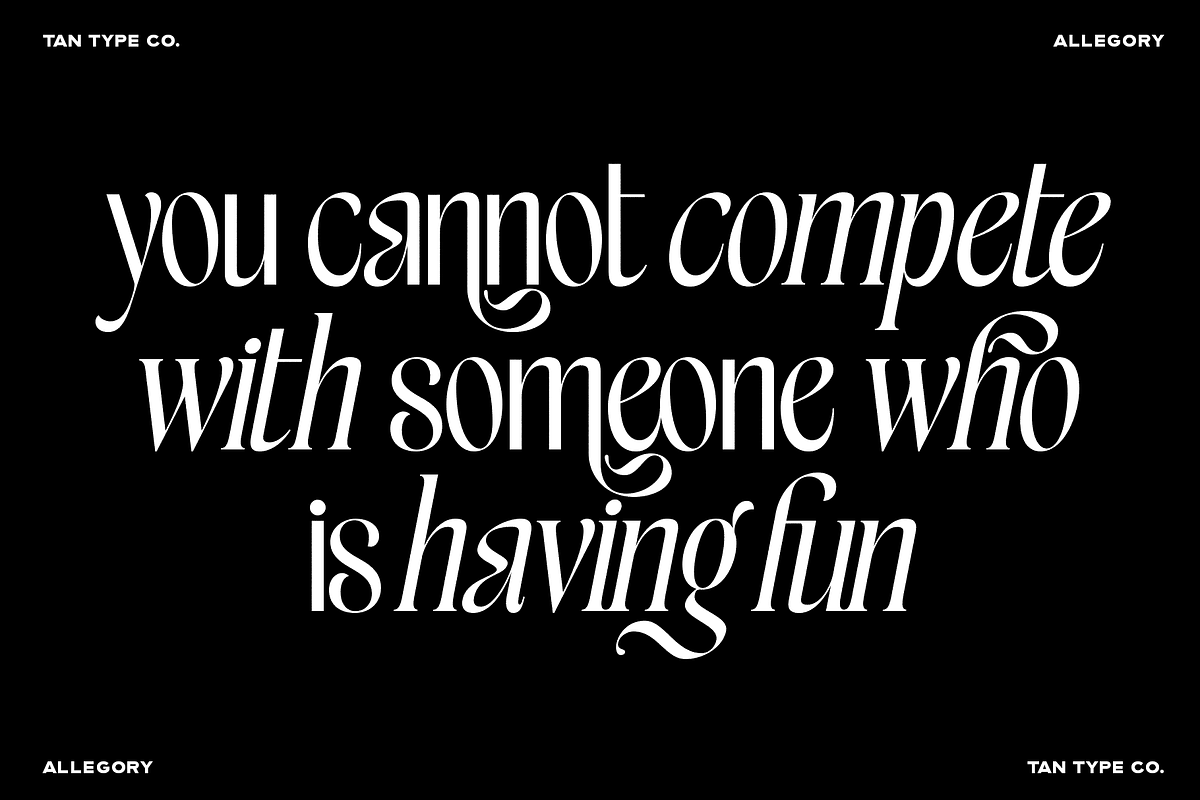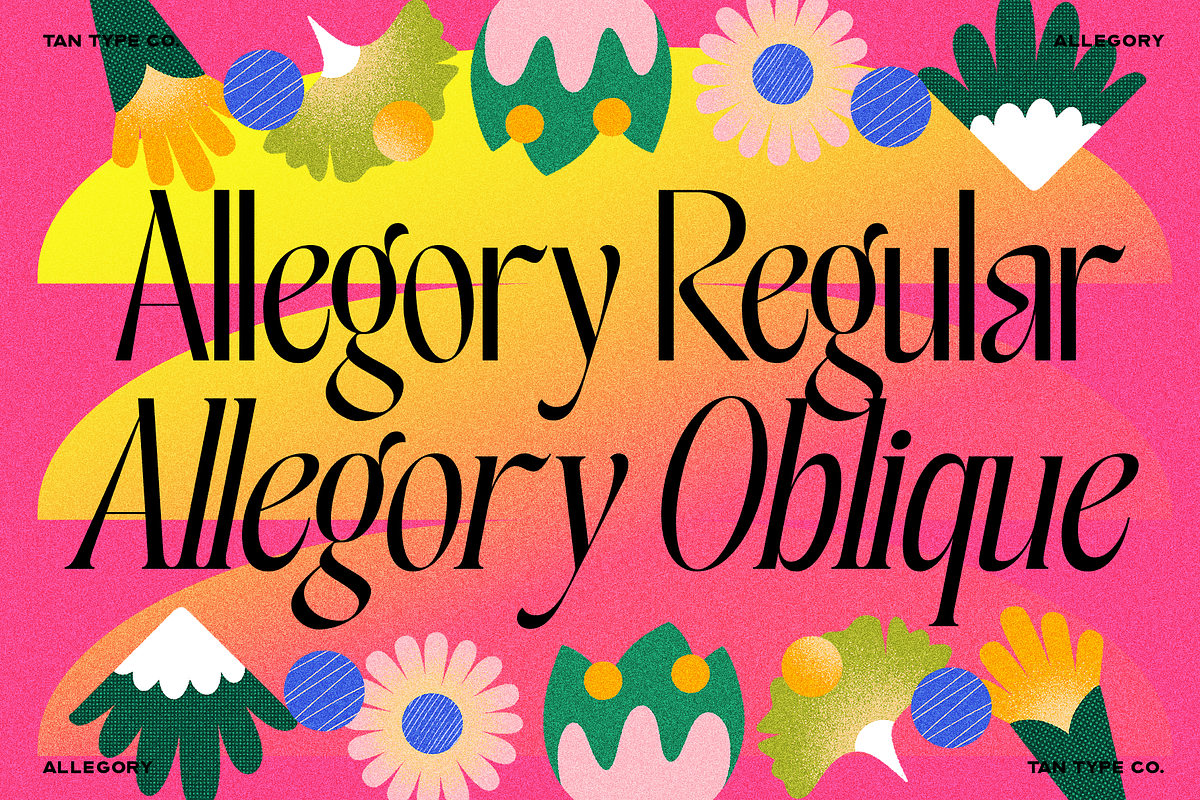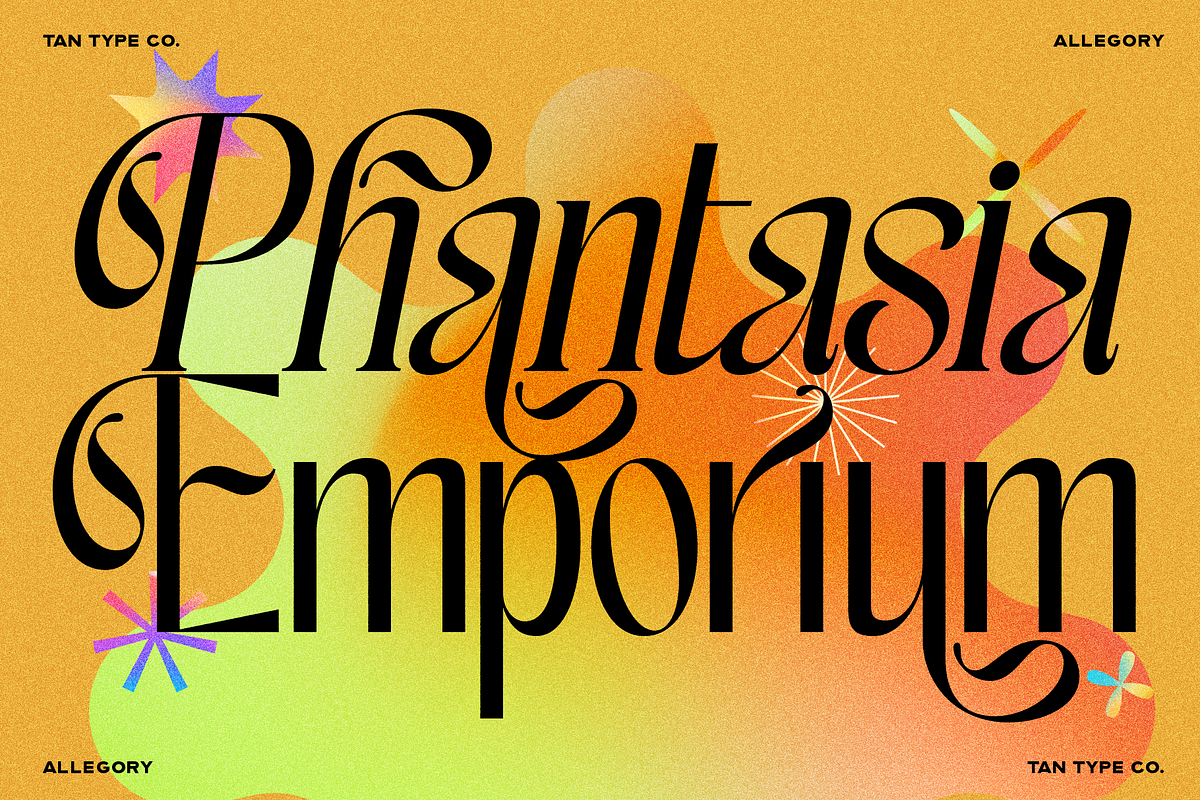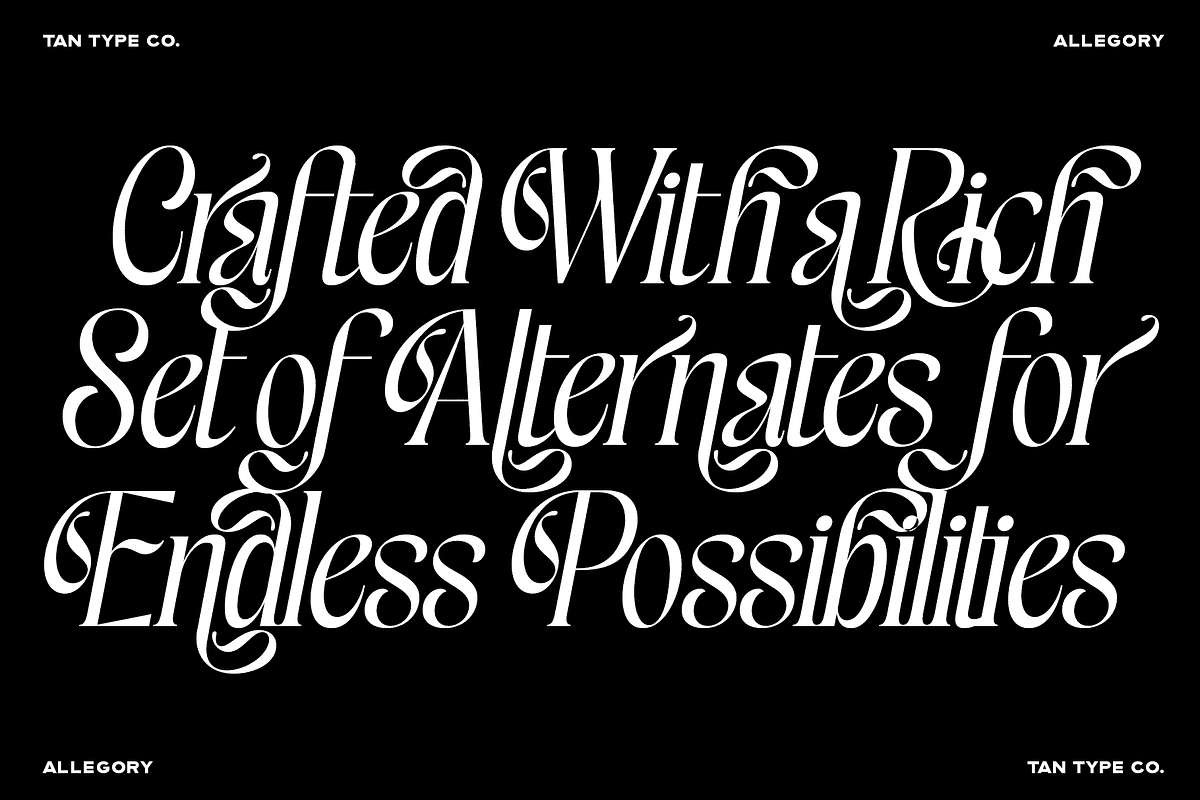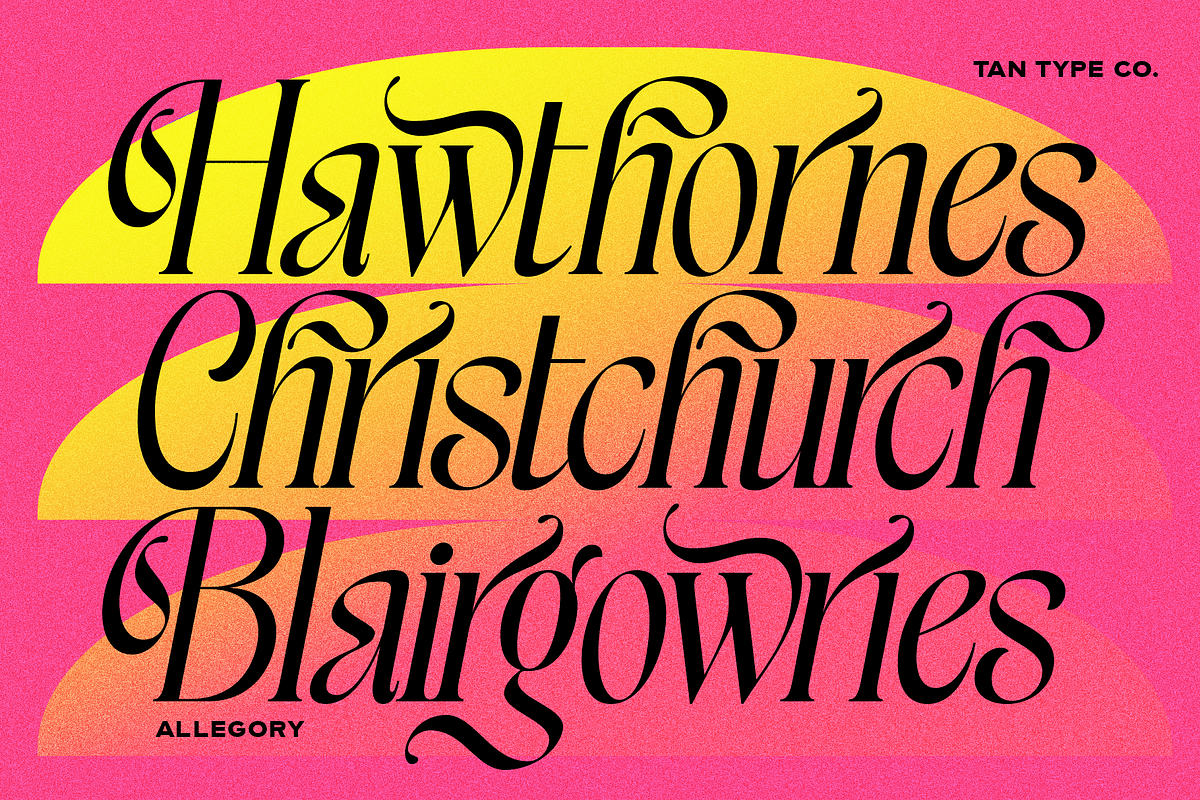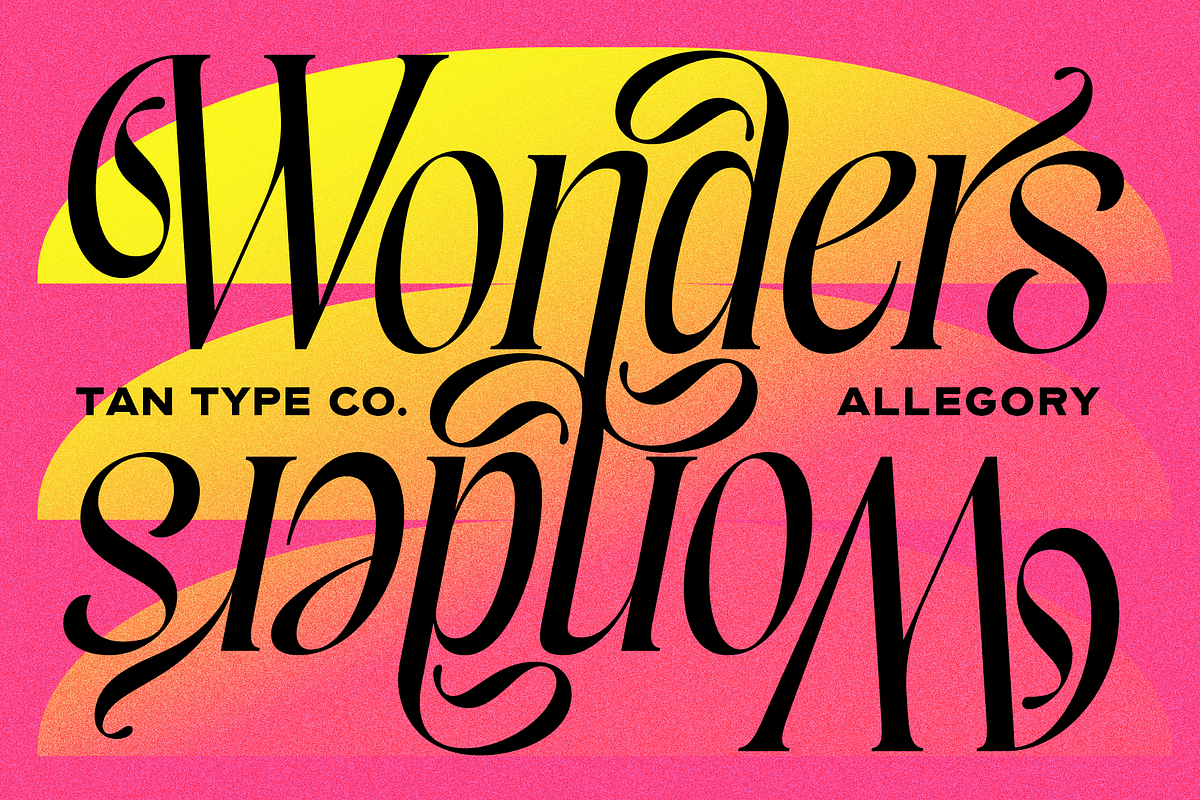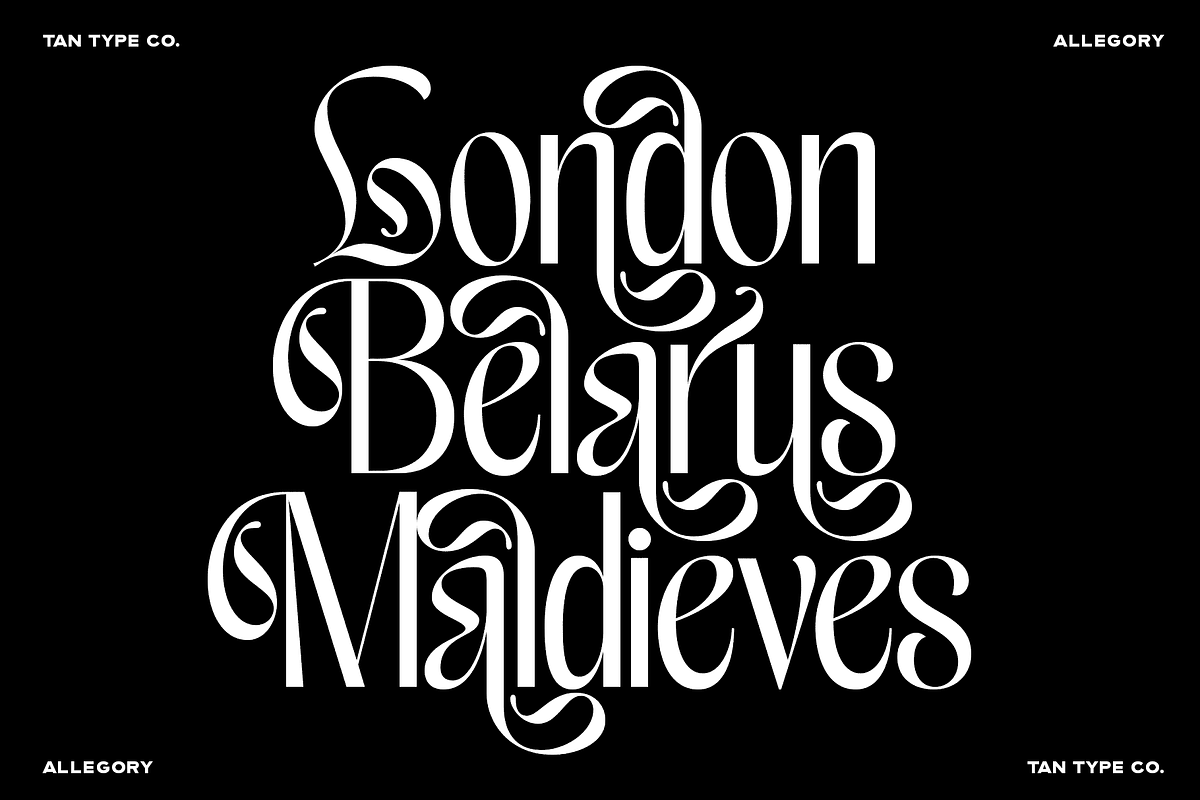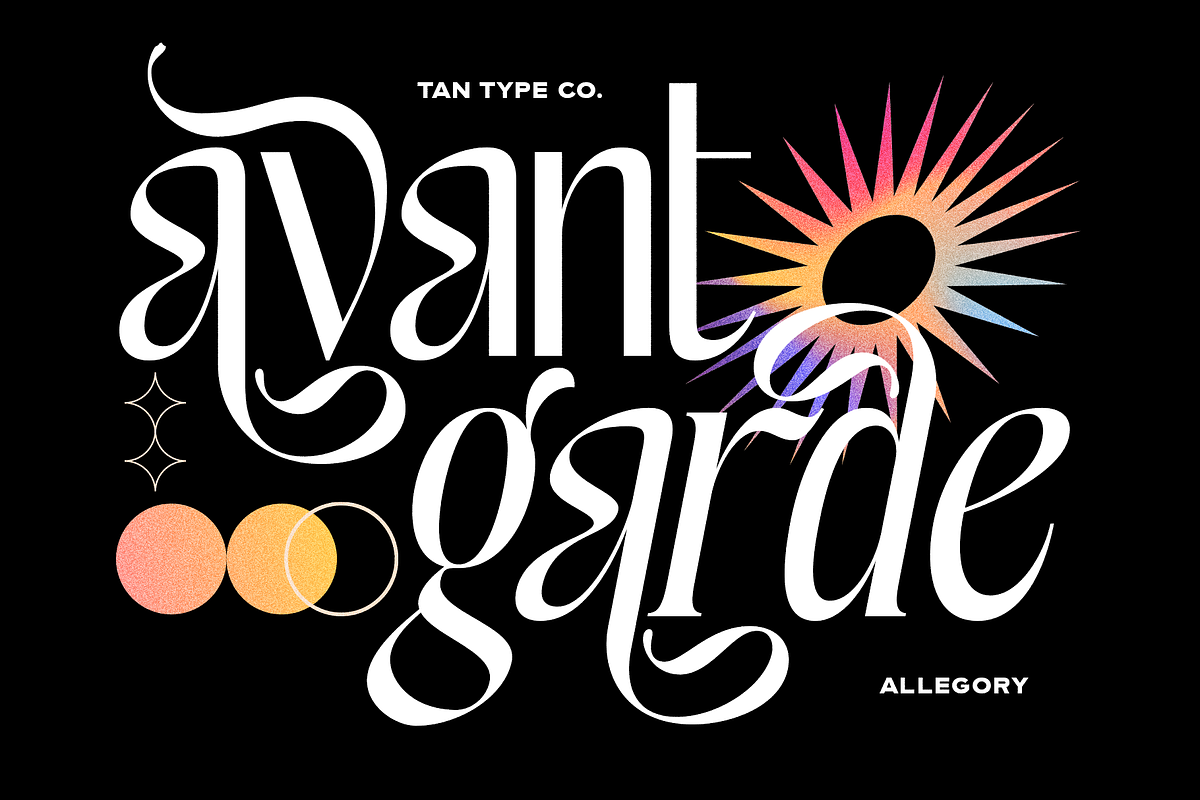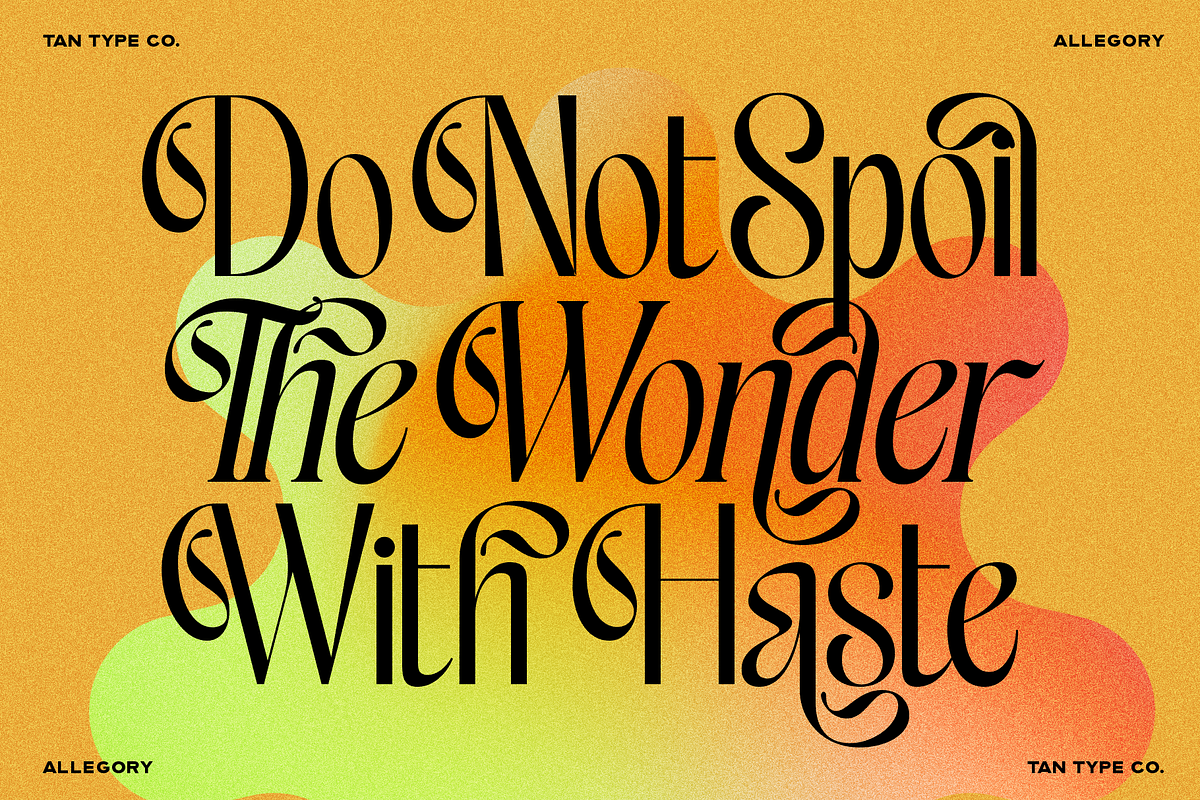
TAN - ALLEGORY, DUO FONT
Tan-Allegory is a sophisticated font duo that blends expressive elegance with modern refinement. Designed to make a statement, this pairing features a high-contrast serif with dramatic curves and a complementary clean sans serif, creating a perfect balance between bold personality and readability.
With its flowing swashes, sharp terminals, and graceful rhythm, the serif brings a sense of romance and editorial luxury, while the sans serif keeps everything grounded and versatile. Together, they create a striking visual harmony ideal for both artistic and commercial use.
Whether you're crafting a brand identity, designing packaging, or building eye-catching social content, Tan-Allegory delivers a timeless yet contemporary aesthetic.
- Branding & logos
- Editorial layouts & magazines
- Packaging design
- Social media graphics
- Invitations & event materials
- Allegory Regular (with elegant alternates & ligatures)
- Allegory Oblique (also featuring elegant alternates & ligatures, a modern companion to Regular)
Tan-Allegory is where expressive form meets intentional design—crafted to elevate your work with effortless sophistication.